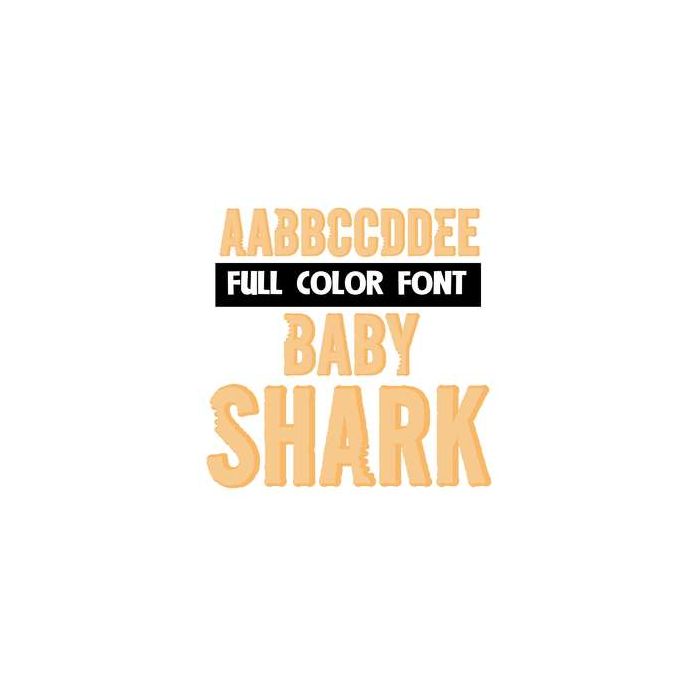
This full color font features shark bites. Mix up both cases for best results. Check out Mommy and Daddy Shark fonts too. This font works best for titles, displays, posters and more. Please note color fonts will show as black in non compatible programs. This font type is compatible with Silhouette Studio.